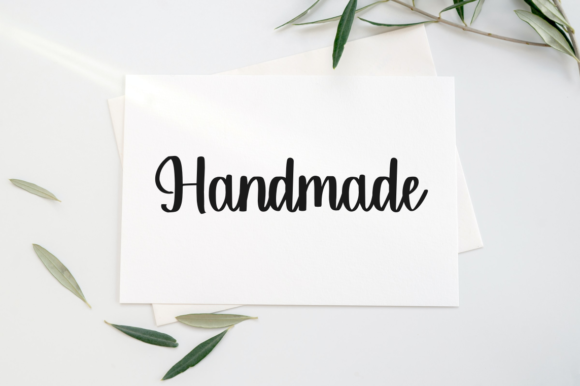
Luna Maya Font
db-ku.com - Script & Handwritten -- Luna Maya is a beautiful script font with a contemporary atmosphere and impeccable form. Not too thin and not too thick, balanced and varied, this font was designed to enhance the beauty of your projects.